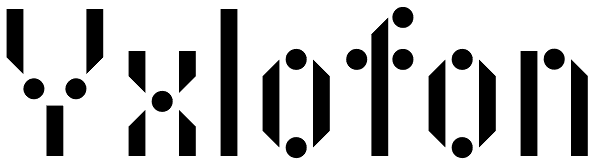
Yxlofon
Yxlofon is a 21st century display typeface with a flavor of 20th century modernism. It should be used in large sizes on posters, leaflets, book covers, disk covers, etc. It suits anything modern, experimental or futuristic in art, architecture...
Yxlofon
Yxlofon Condensed Caps
Yxlofon Small Caps